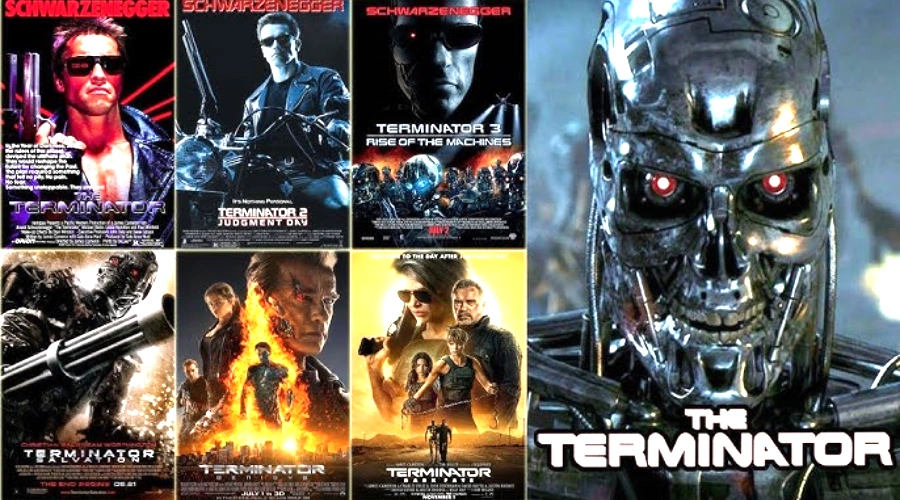
The Terminator movie series, which began in 1984, is a science fiction saga about a cyborg assassin sent from the future.
We have found many similar Terminator Movie Fonts and most of them are fan-made.
The Terminator font, designed by Allen R. Walden, is a techno, science-fiction themed typeface that captures the essence of the iconic movie franchise’s title logo.
The Terminator Two font is a typeface that has been designed to resemble the lettering used in the title sequence of the famous movie “Terminator 2: Judgment Day.” It is a popular font among fans of the movie and those looking for a futuristic or industrial typeface for their projects.
Terminator Real NFI is a futuristic, sci-fi style font inspired by the Terminator movie franchise. This font look very similar to the Original Terminator Movie 1984 and Terminator 3: Rise of the Machines (2003) movie title. It features a bold, chunky and mechanical look with rounded corners, making it suitable for headlines, titles, logos and designs related to movies.
The TSALVACION font by FZ is a font inspired by the 2009 film “Terminator Salvation”. It was designed to capture the gritty, industrial aesthetic of the post-apocalyptic world depicted in the movie.
The Terminator Genisys font is a custom font created by HackFonts, inspired by the 2015 movie “Terminator Genisys”. The font captures the bold, futuristic style seen in the movie’s logo and typography. It features an expanded semi-bold weight with angular letterforms and distinctive stylized characters like the “T” and “G”.
The Schwarzenegger font is a modern display font created by Neale Davidson of Pixel Sagas. It is inspired by the various logos used in the Terminator movie franchise and is designed to capture the bold, industrial aesthetic associated with the films. The font family includes four styles: Regular, Condensed, Italic, and Condensed Italic.
The Terminator Dark Fate font is a free font created by NubeFonts and released in 2019. It is inspired by the typography used in the movie “Terminator: Dark Fate” and has a futuristic, industrial look.